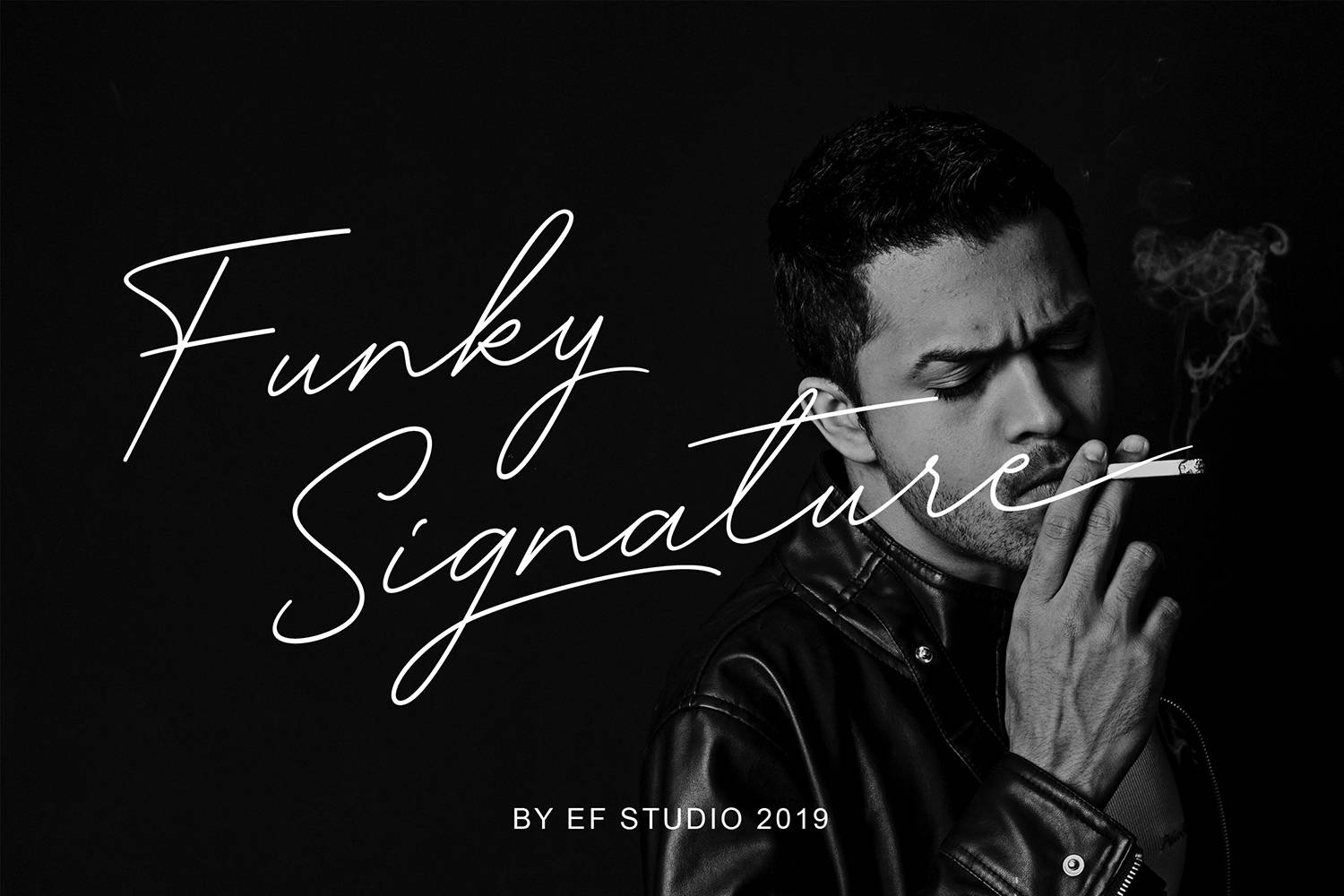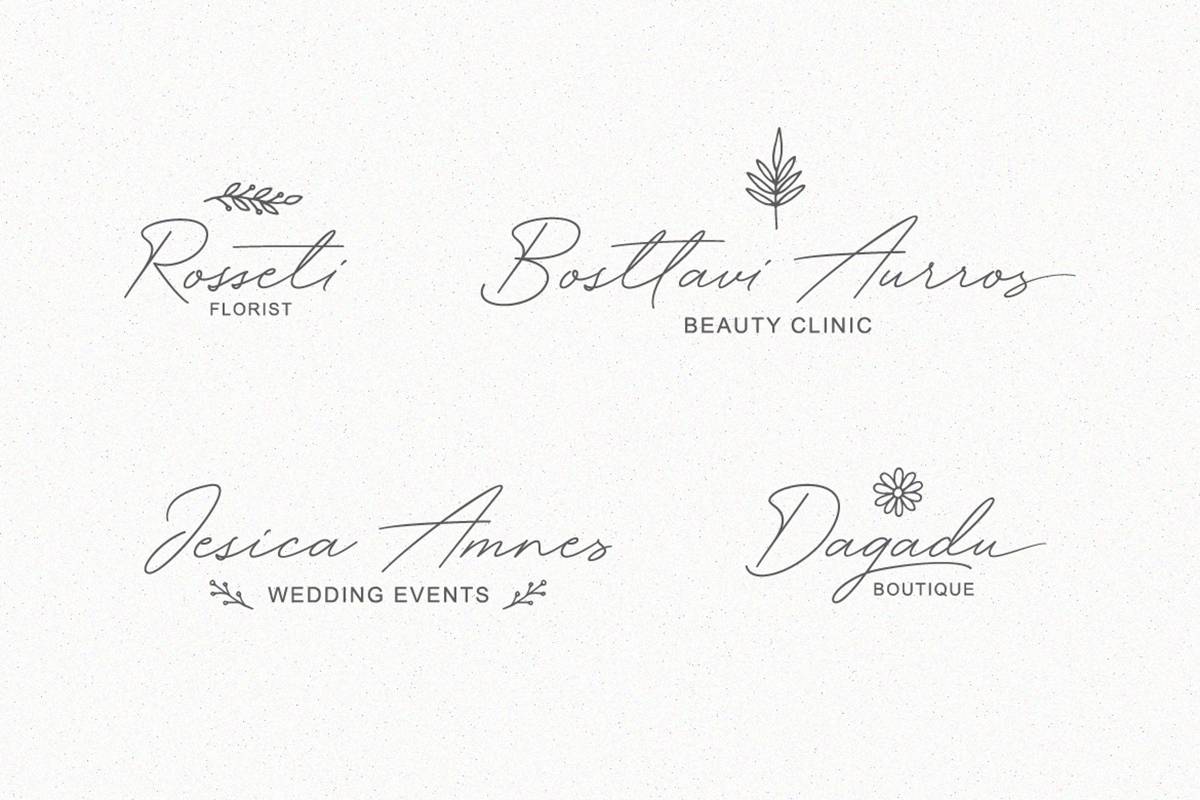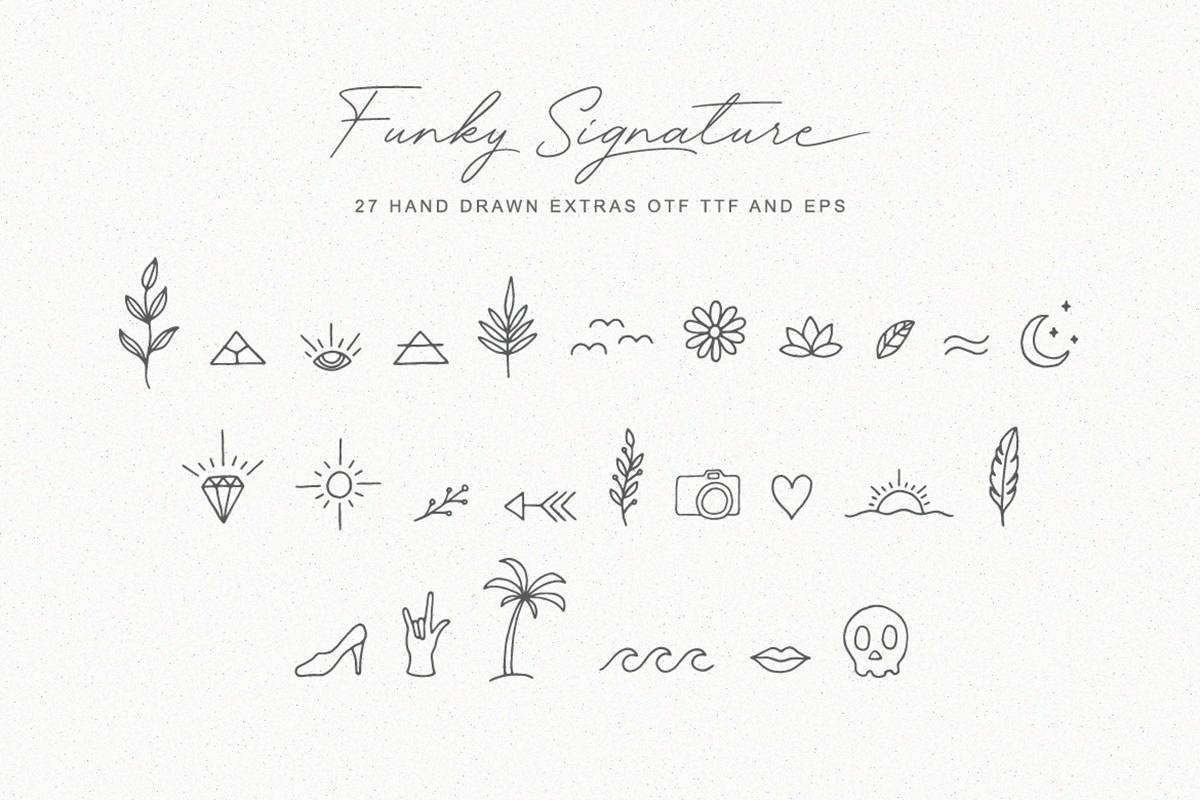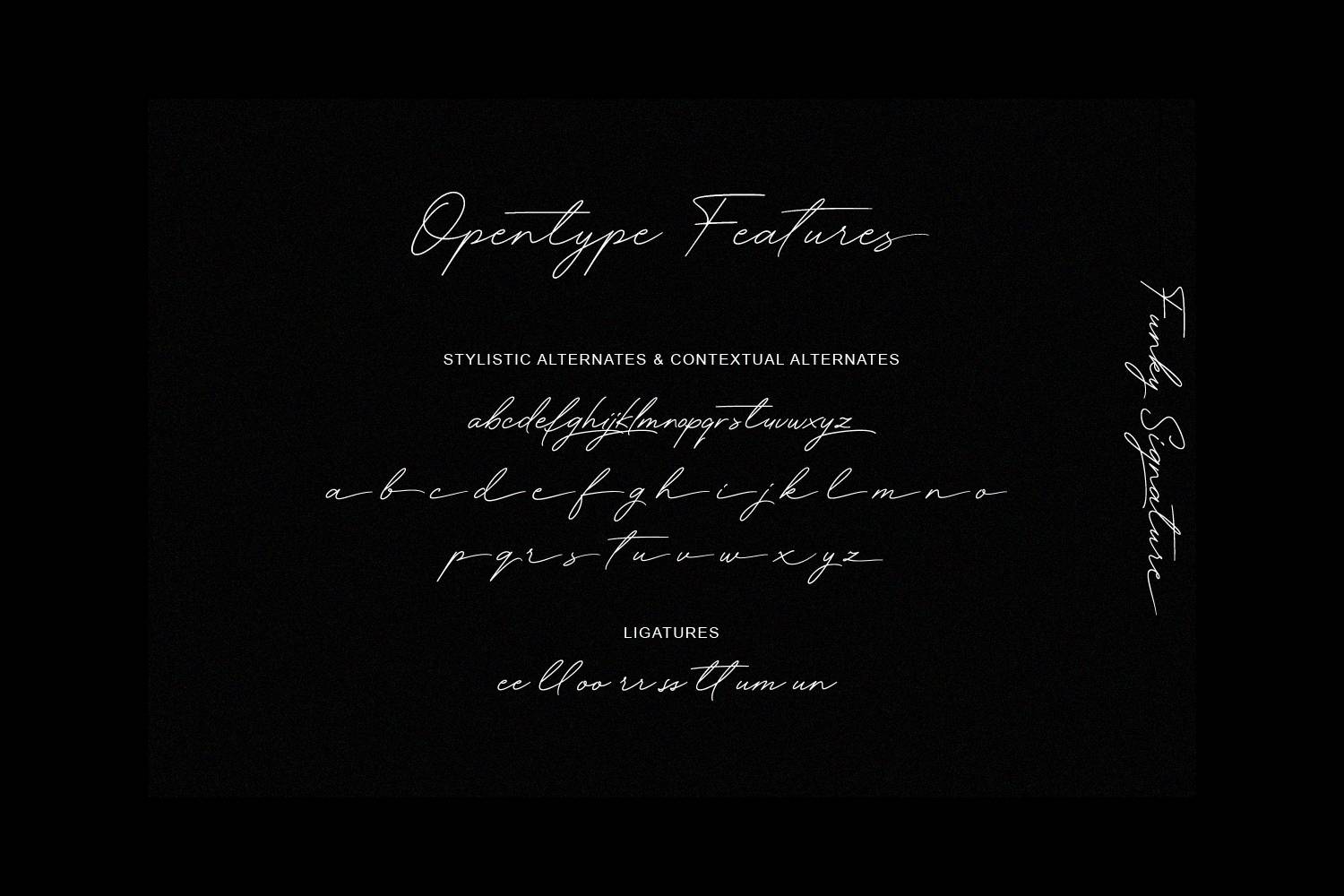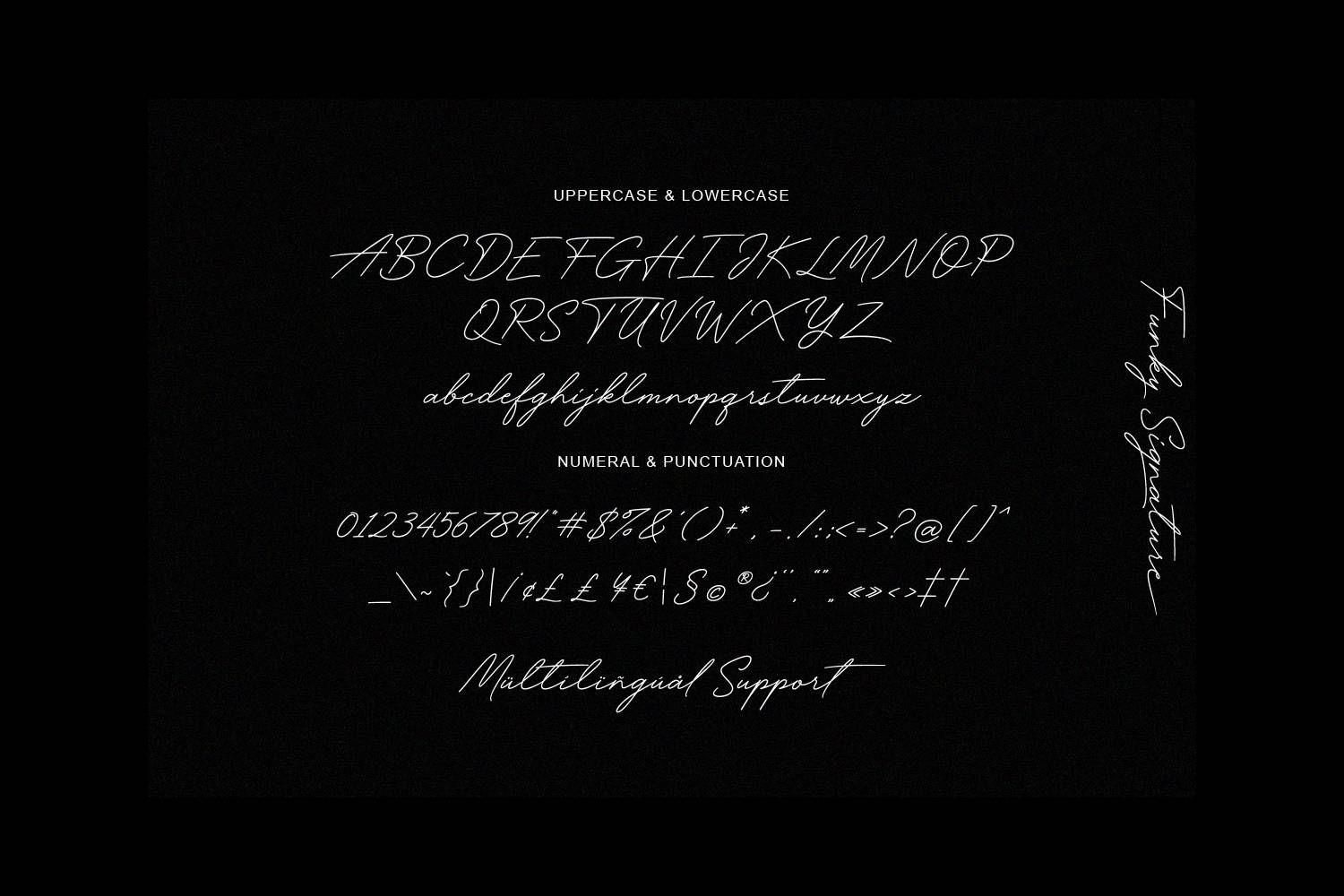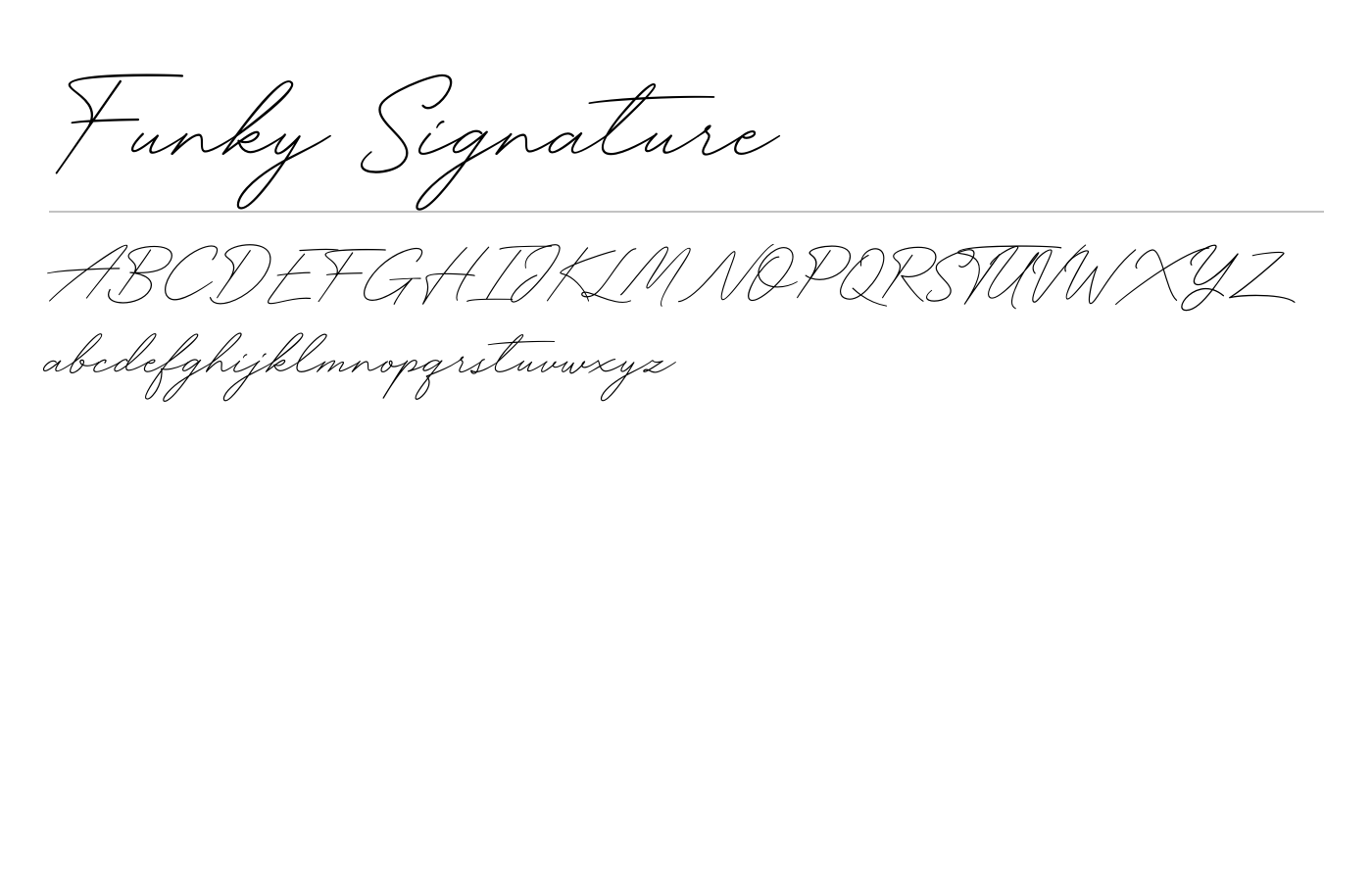
Funky Signature is a delicate, handwritten script font that captures the natural flow of a personal signature with its slender, flowing strokes and elegant, slightly slanted letterforms. Its airy and light style makes it perfect for adding a sophisticated, intimate touch to branding, invitations, and creative projects that want to feel personal and stylish. This font shines best in logos, wedding stationery, and upscale editorial design where a refined yet approachable vibe is desired.
Funky Signature Font
About Funky Signature Font